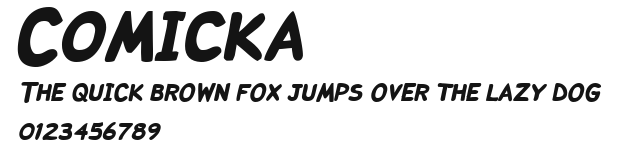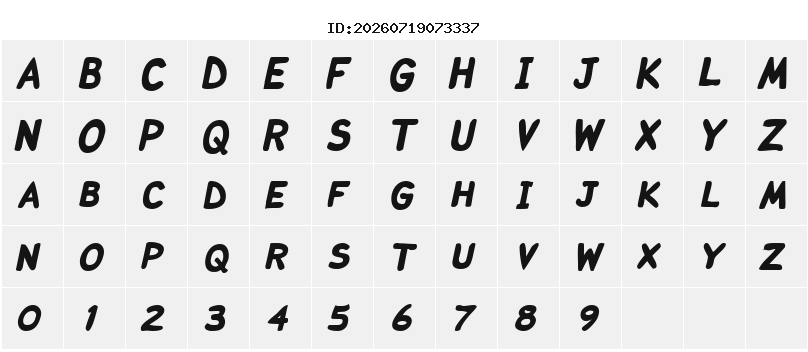
Comicka Preview
• Font Name: Comicka
• Font Style: BoldItalic
• Font ID: Macromedia Fontographer 4.1 Comicka BoldItalic
• Full Font Name: Comicka BoldItalic
• Version: Macromedia Fontographer 4.1 12/16/00
• PostScript Name: ComickaBoldItalic
• Character Count: 120
About Comicka.ttf
Comicka.ttf is a modern, elegant sans-serif font designed for ultimate readability and visual harmony. Perfect for branding, headlines, web design, and print materials.